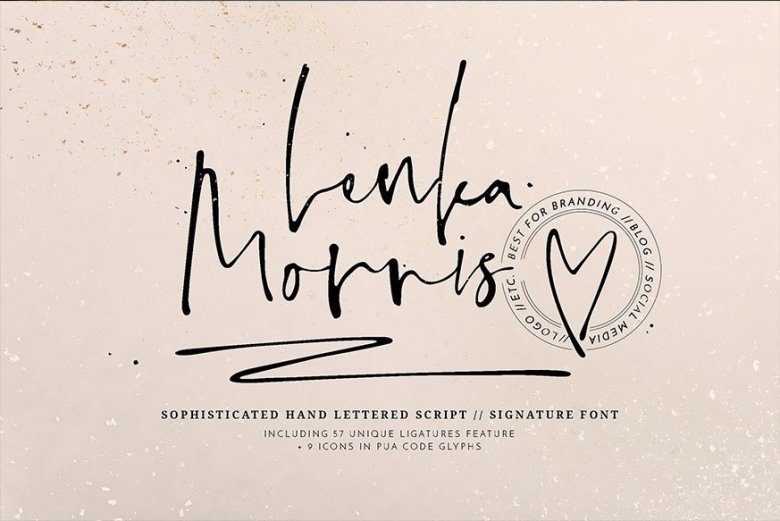
Lenka Morris Font
Lenka Morris is a hand lettered font with unique ligature effect that makes it more natural. Lenka Morris is best for: blog, logo, social media, branding, poster, quotes, wedding cards & so forth, you decide!
The font contains accented character for international language (check preview images to see which glyphs are included), 57 unique ligatures that is different from the main alphabet and 9 distinctive icons in PUA Code.